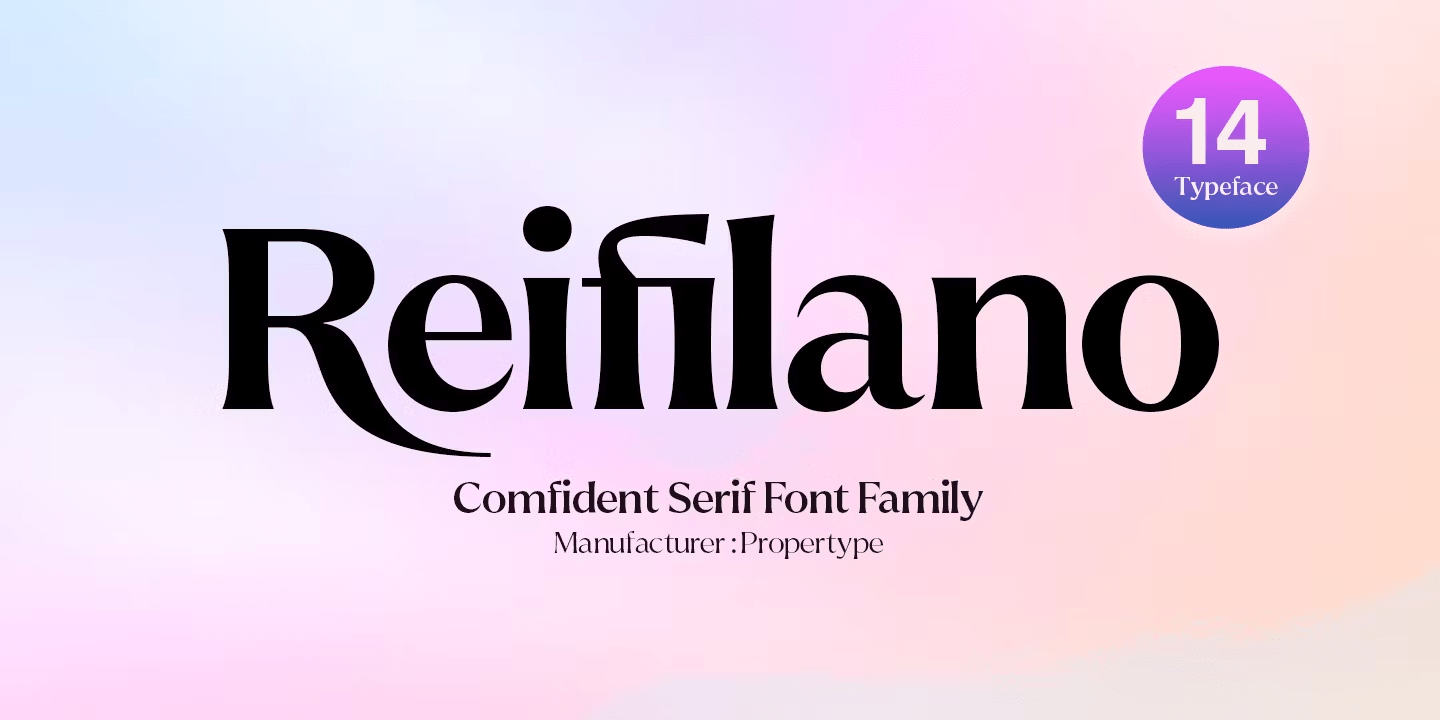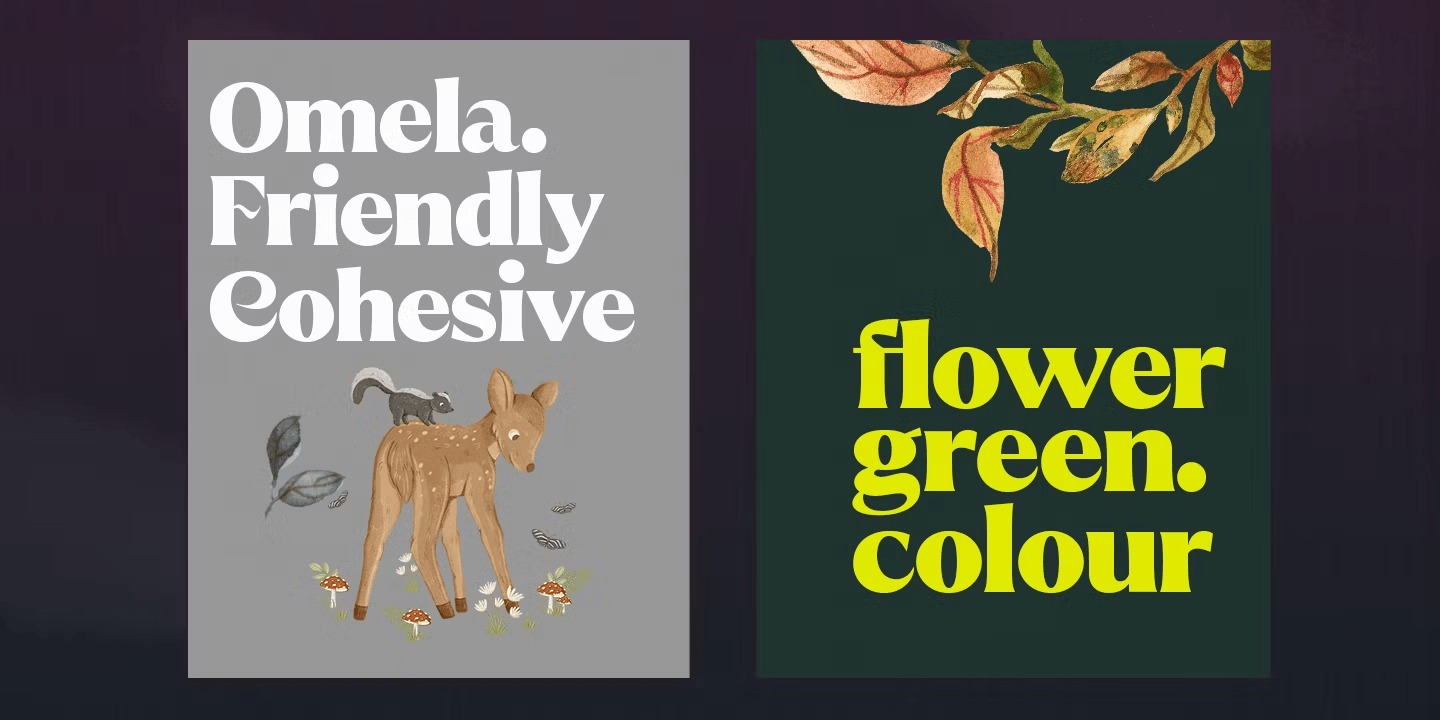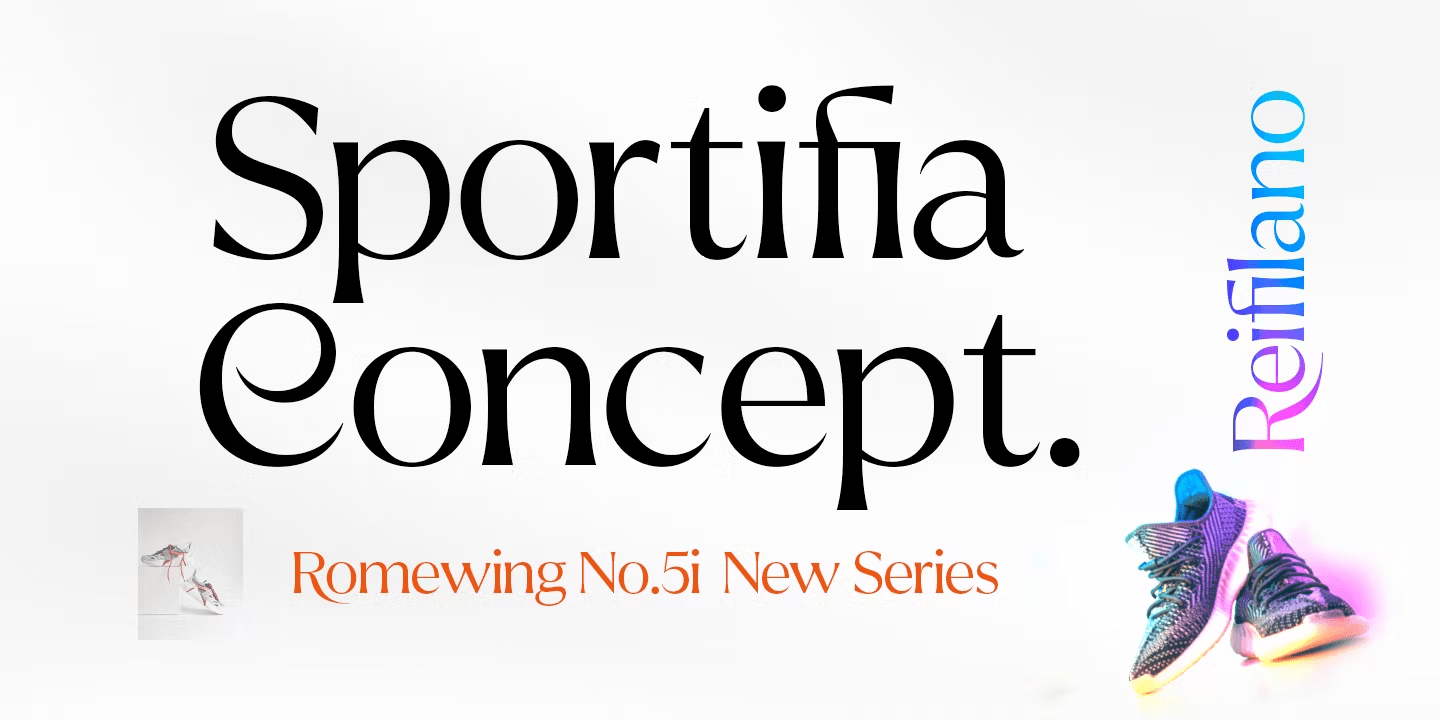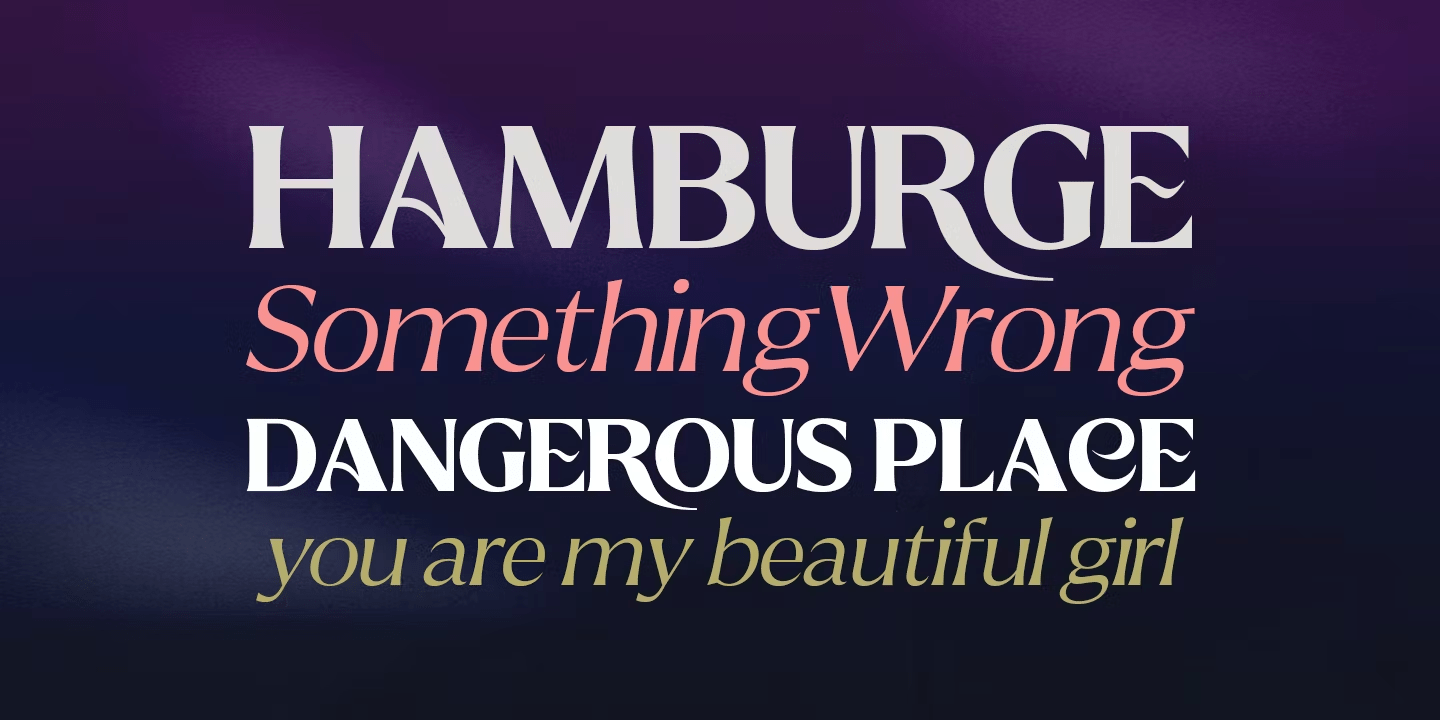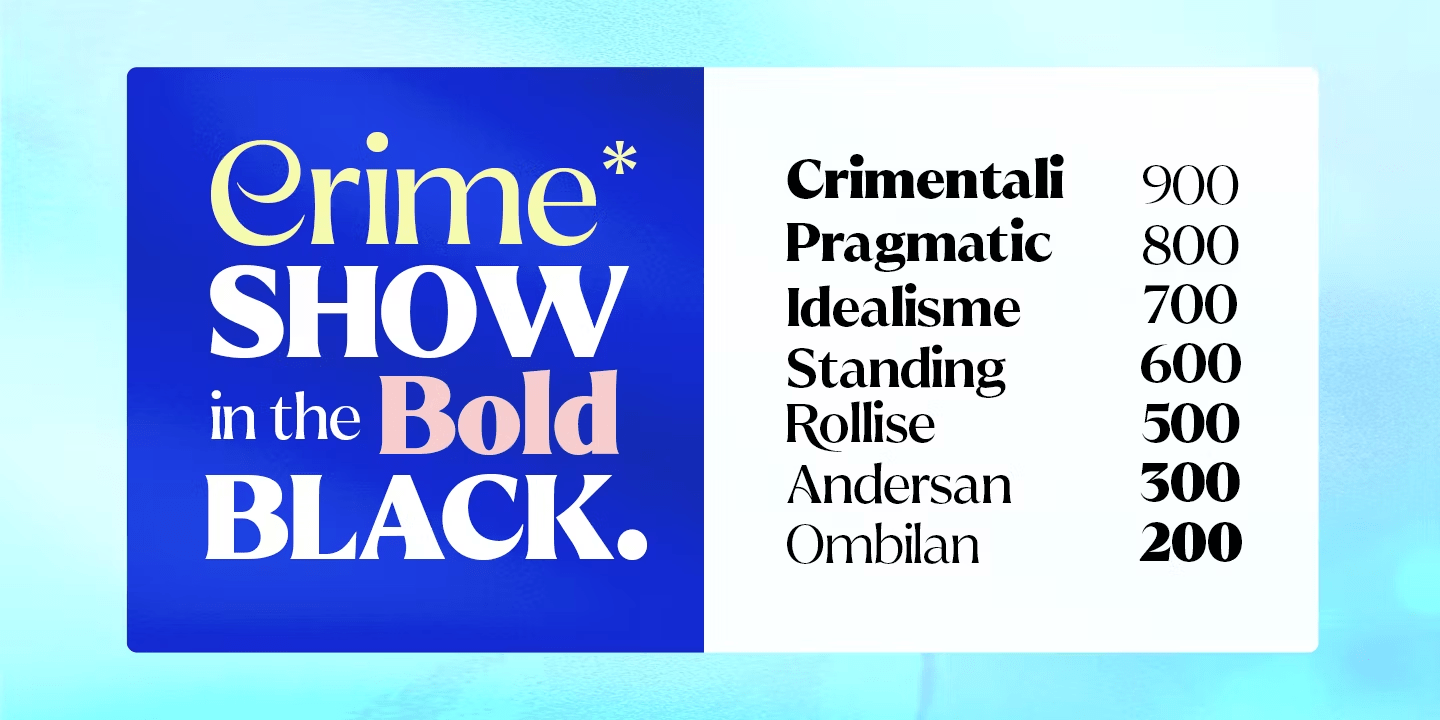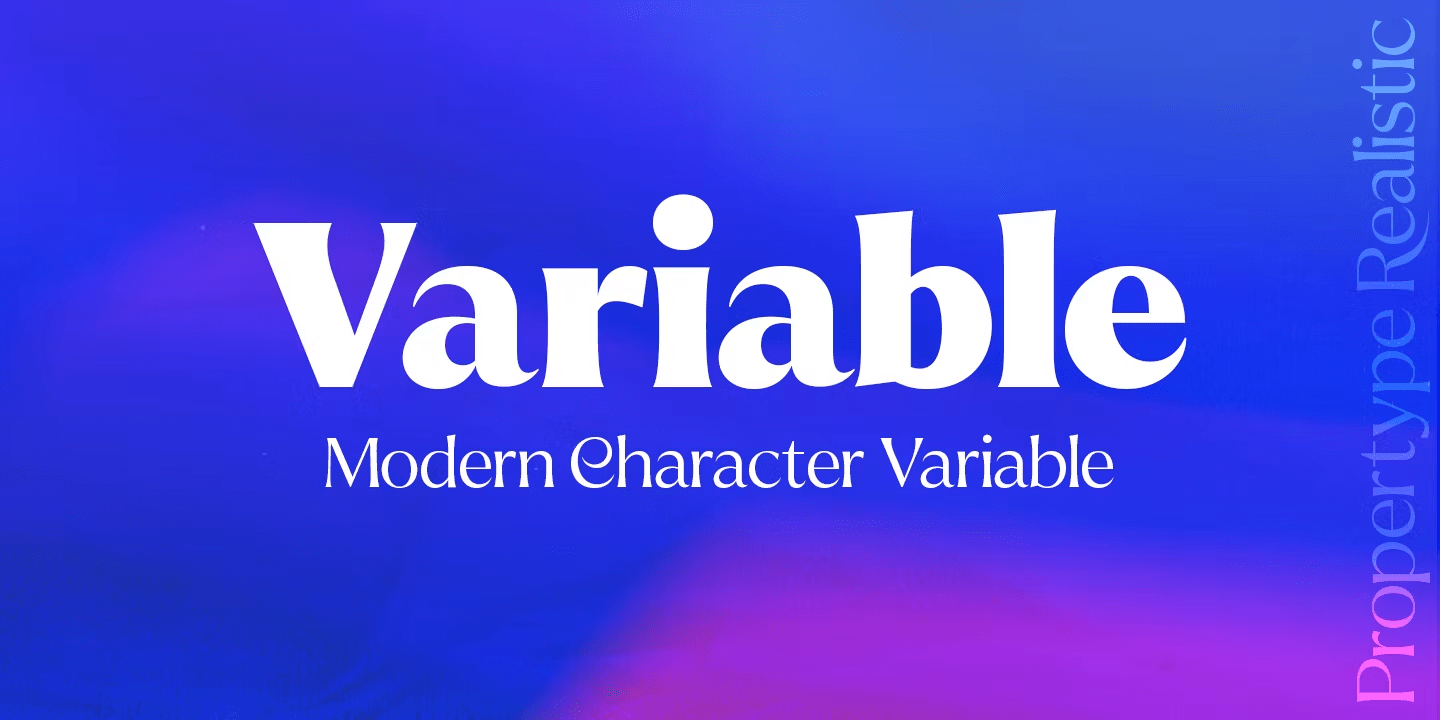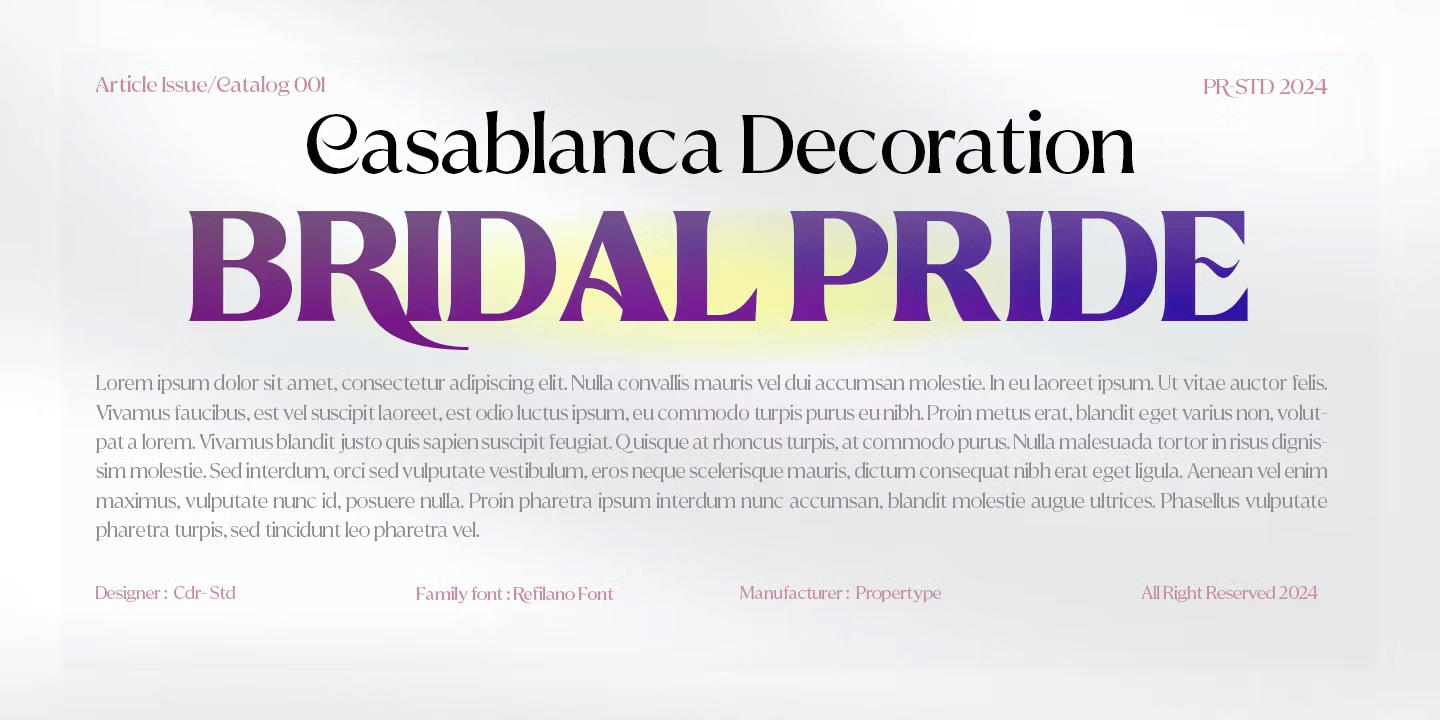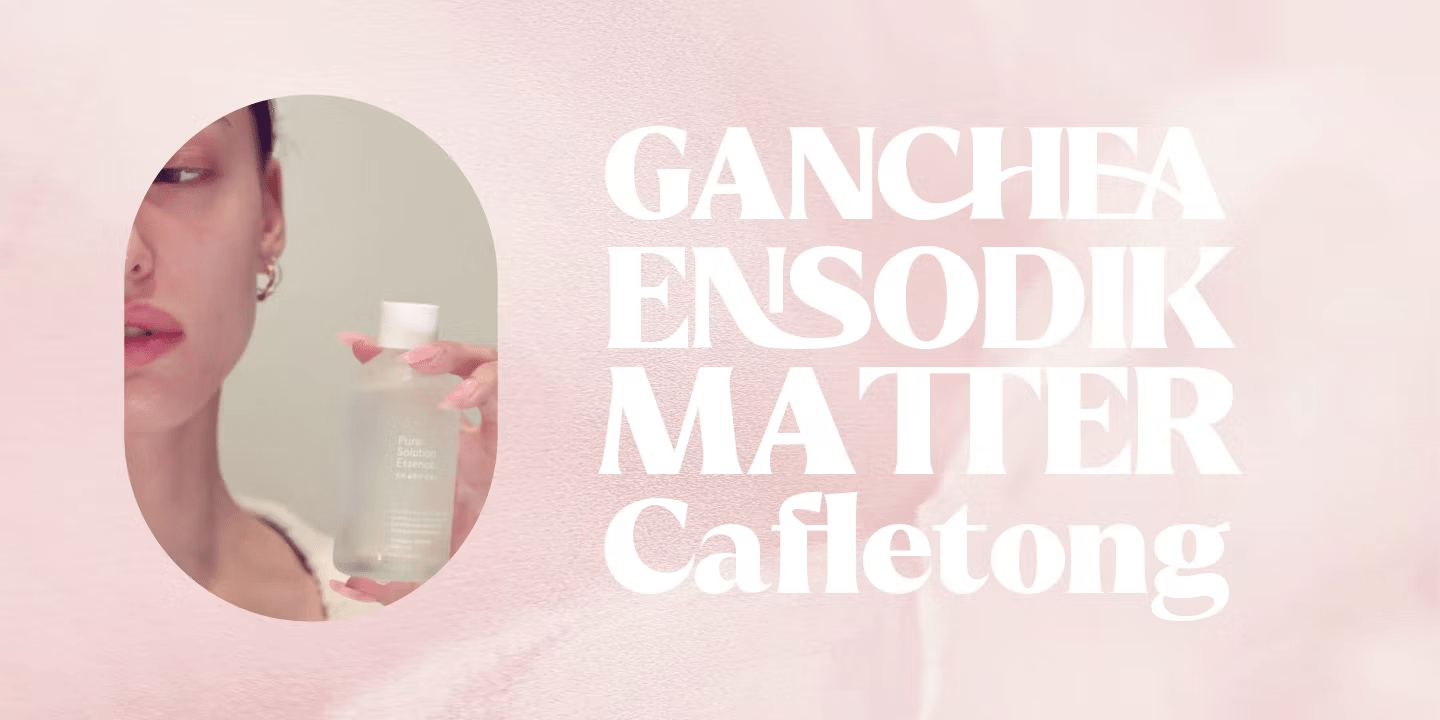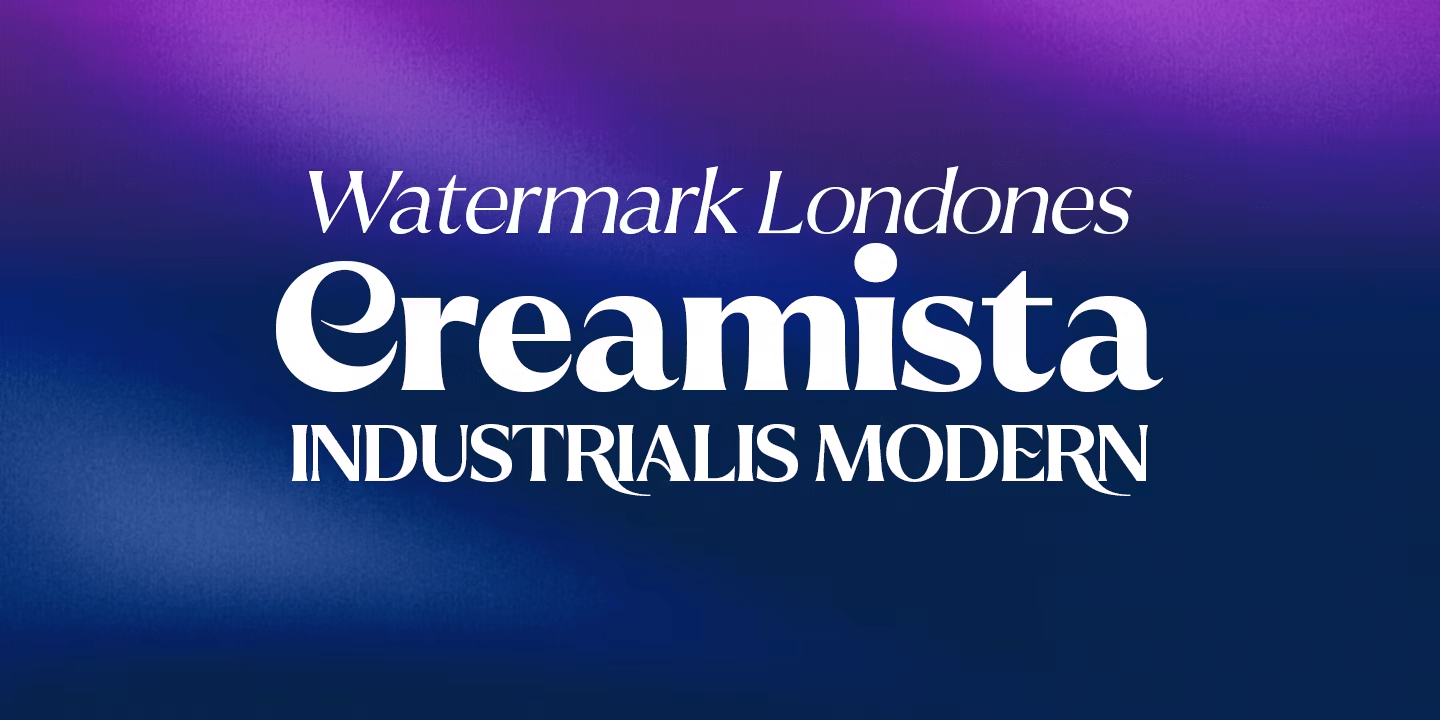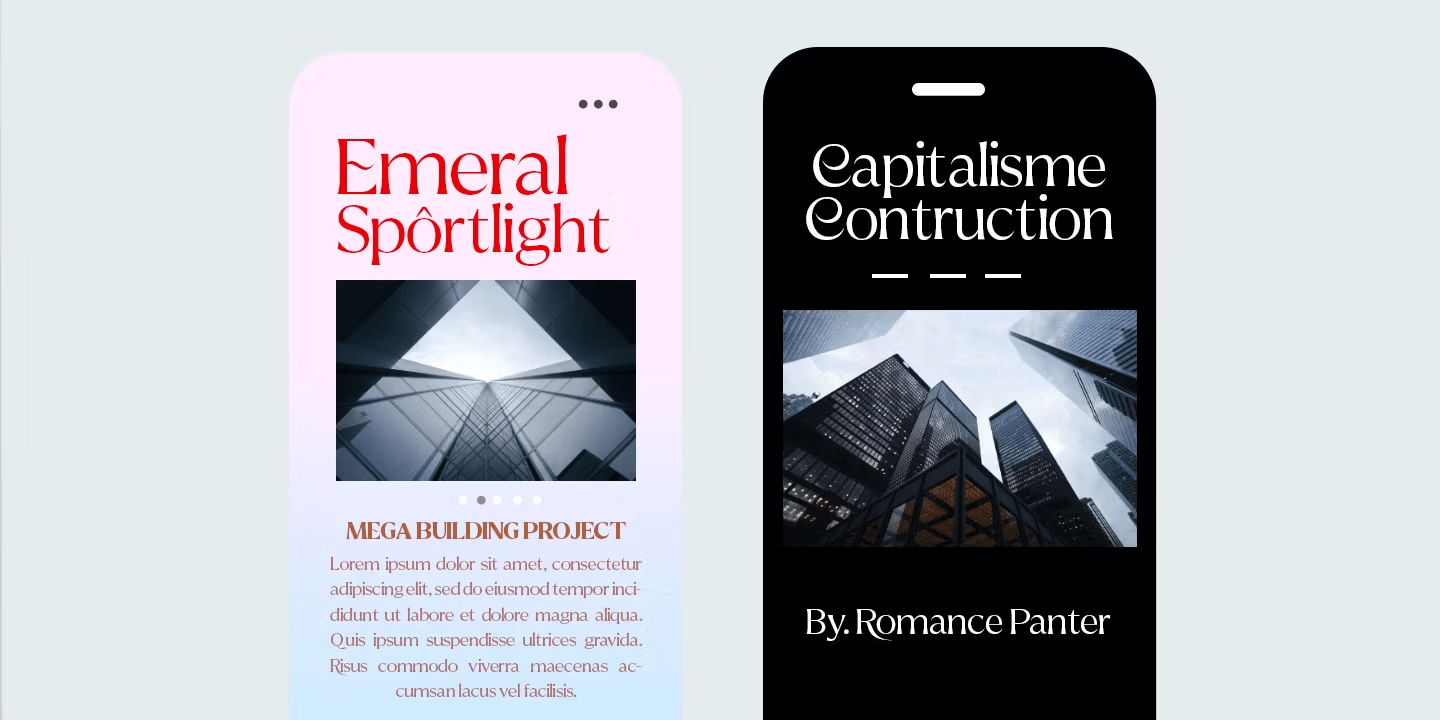
Reifilano
Reifilano Serif confident is an elegant, modern, and contrasting serif font family. It includes upright and oblique styles, each having seven weights from thin to thick. This is a versatile font perfect for any project, contrasting, modern and easy to read. With it, you can create logos, use them in advertising, packaging, book and magazine covers, titles, descriptions and much more.
Reifilano Family features multilingual Support for multiple languages.